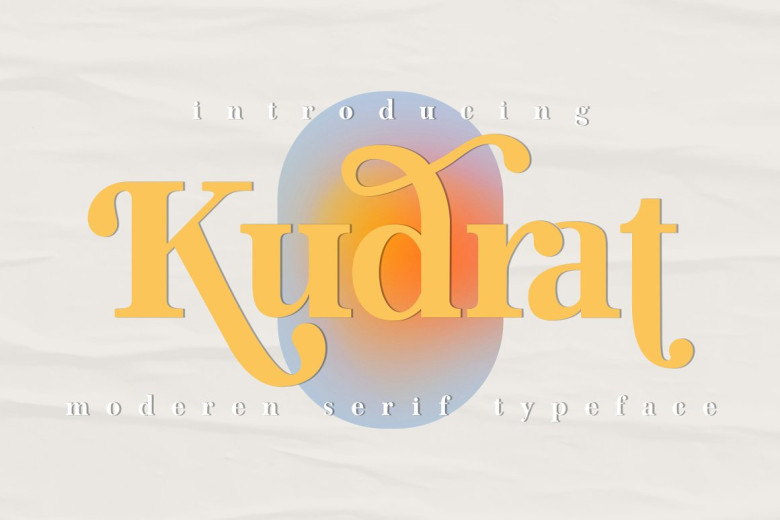
Kudrat Font
Kudrat Font is an ideal way to showcase your work or business, both online and off. Designed specifically to be used on advertising platforms like television, it also lends itself well to offline platforms thanks to its adaptable nature, designed letters can even be shaped differently based on design requirements! And for even further versatility Kudrat font can even be utilized for writing formal letters! Best regards.
Kudrat Serif Font